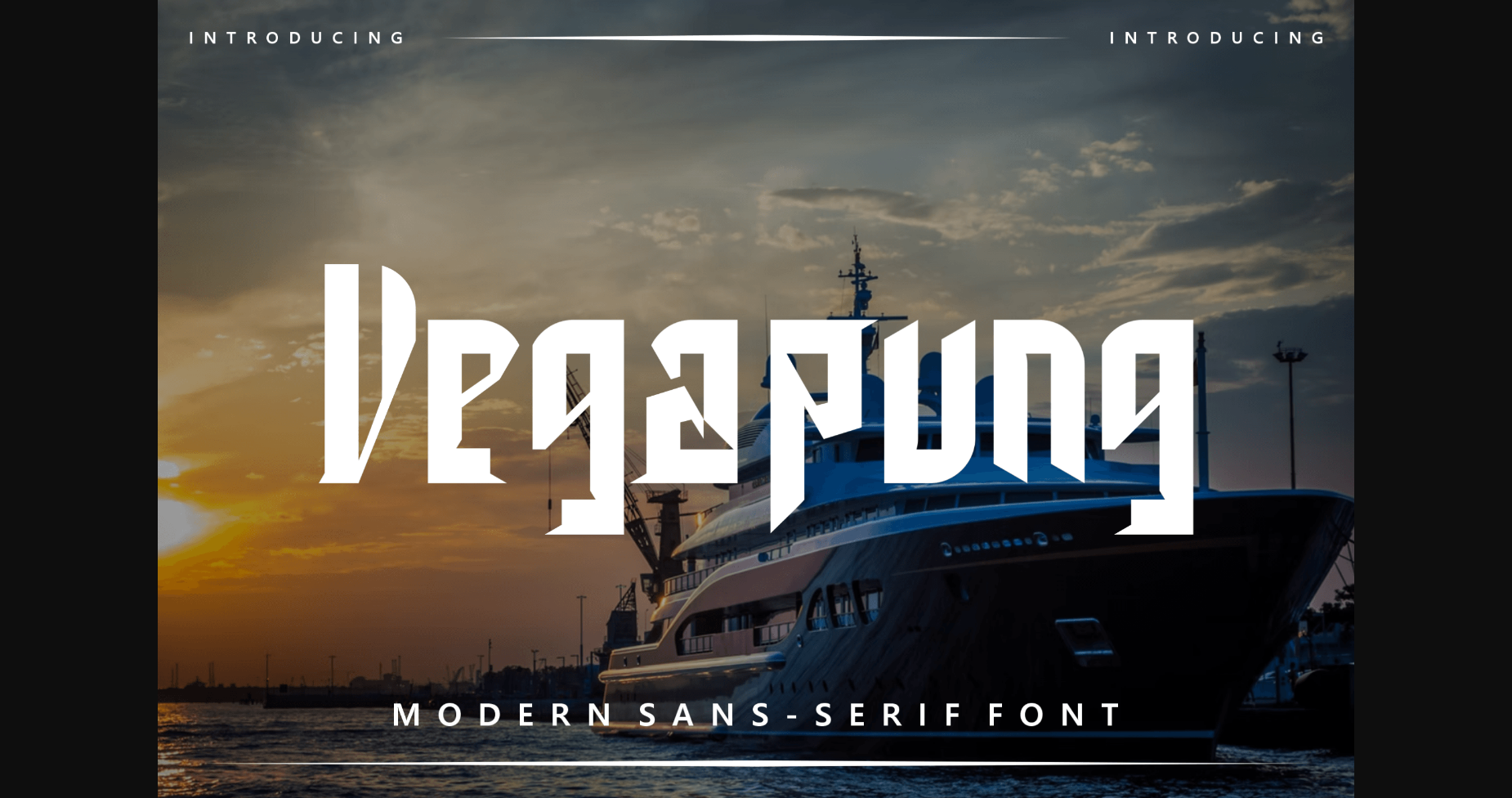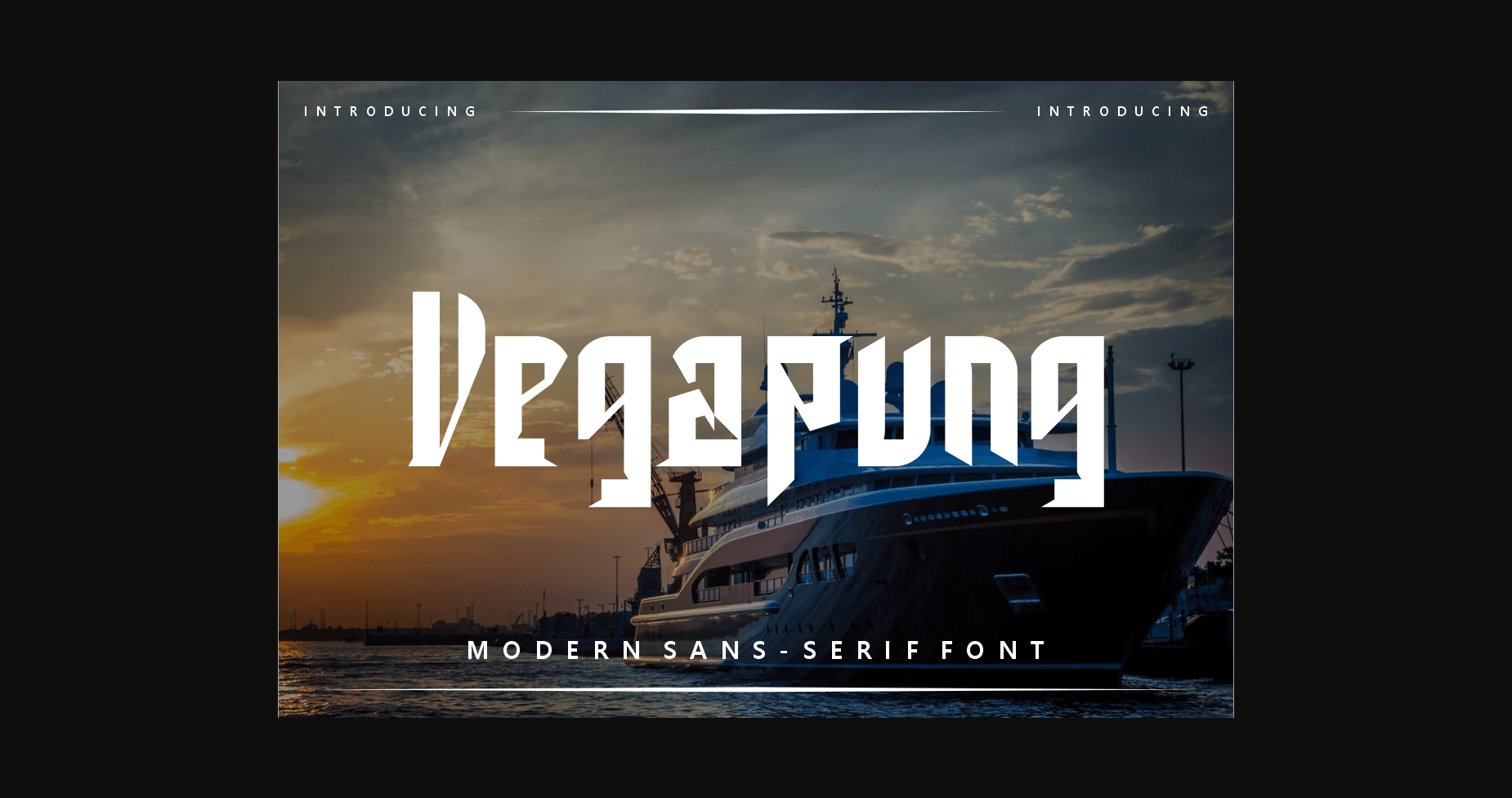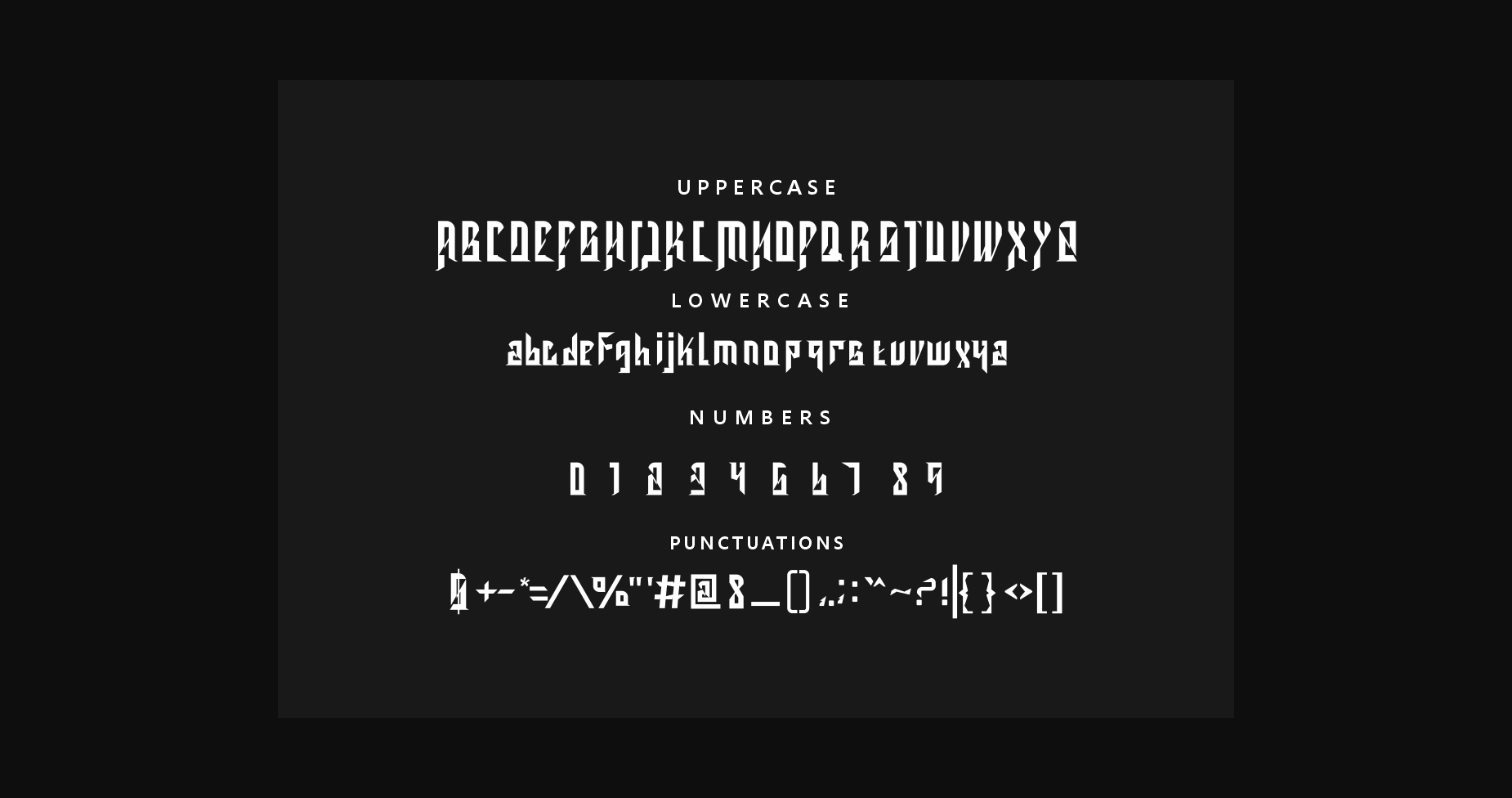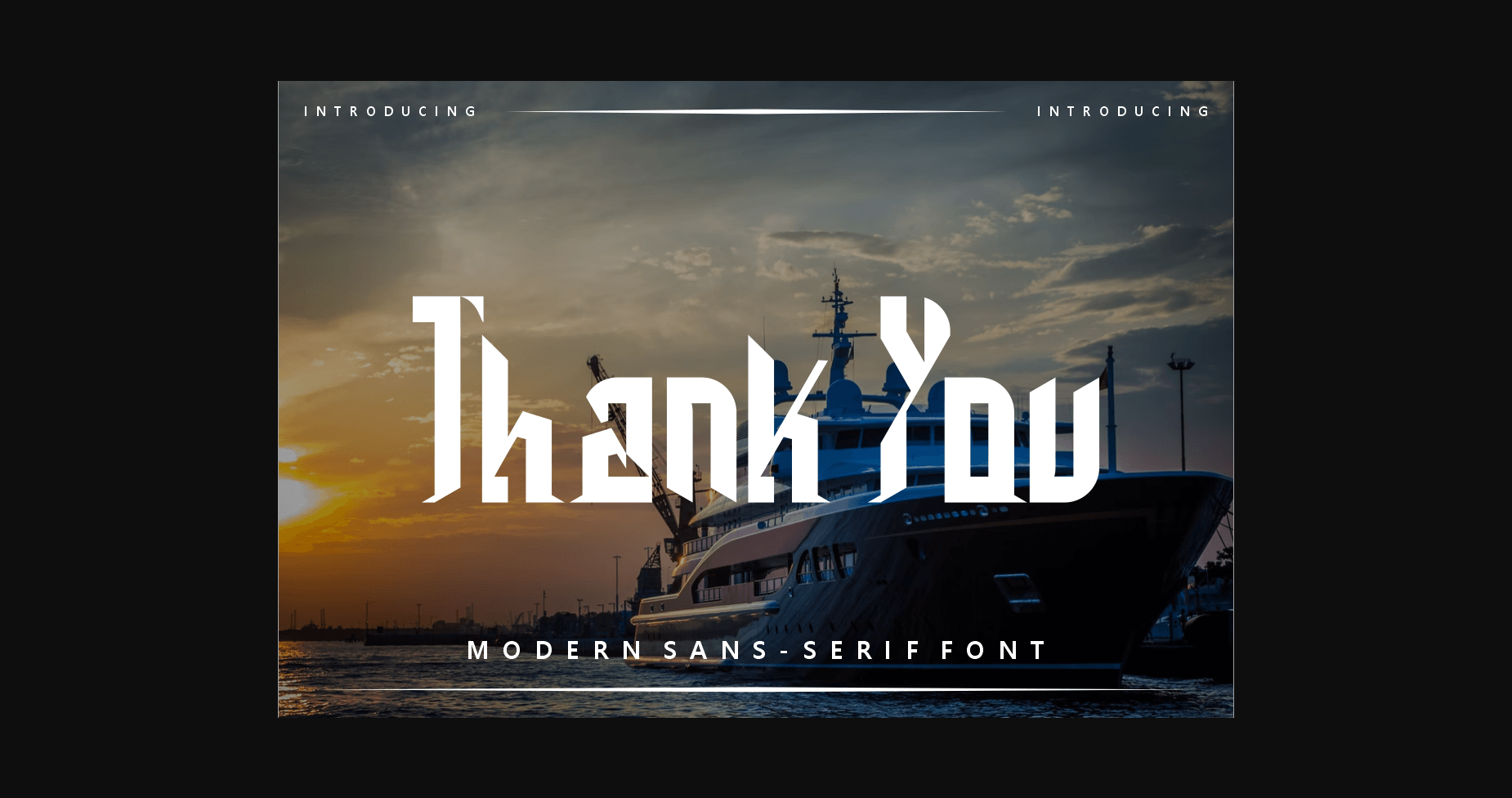
About Vegapung Font
Vegapung is a modern and trendy sans serif font with a cool techno vibe. No matter the topic, this font will be an incredible asset to your fonts’ library, as it has the potential to elevate any creation.